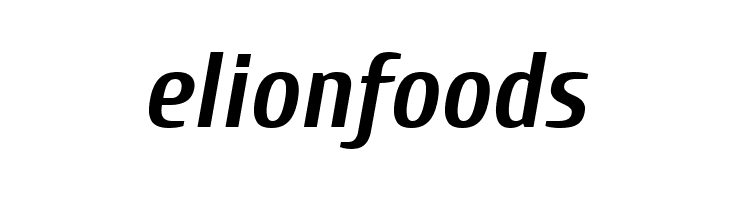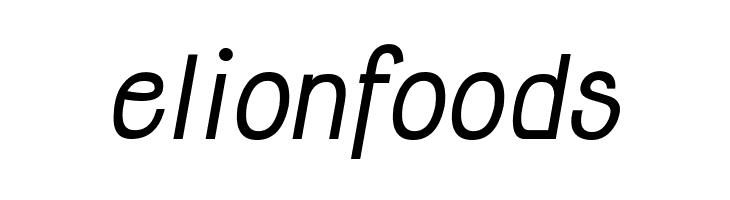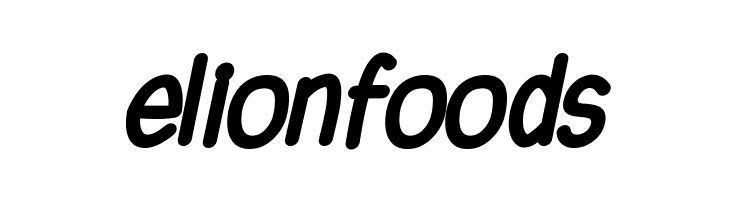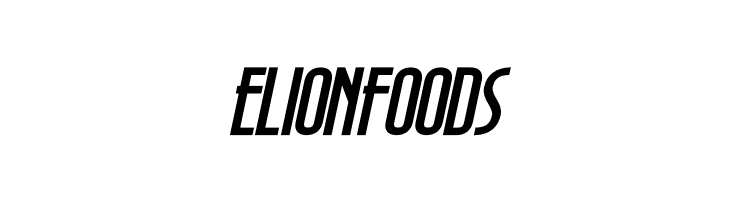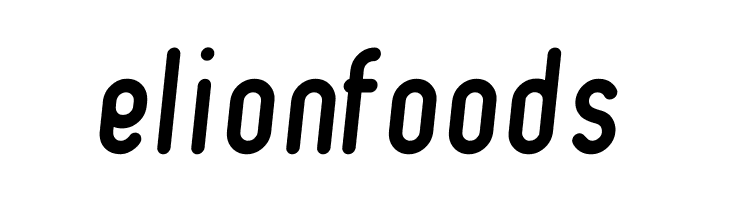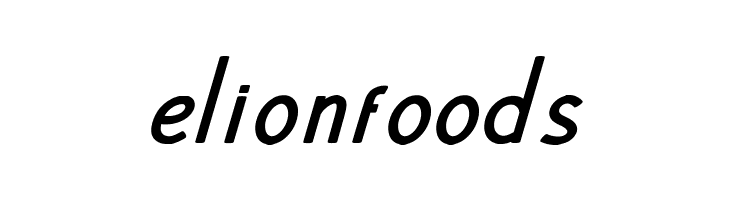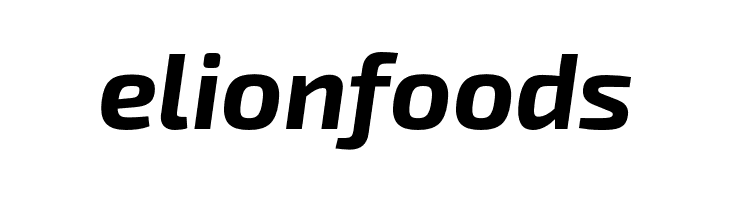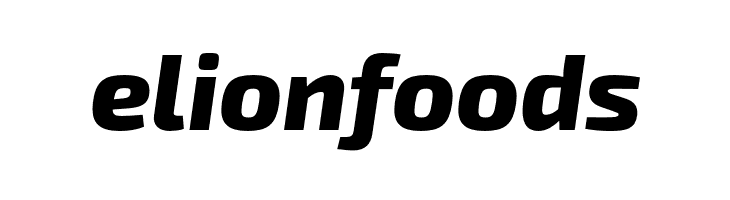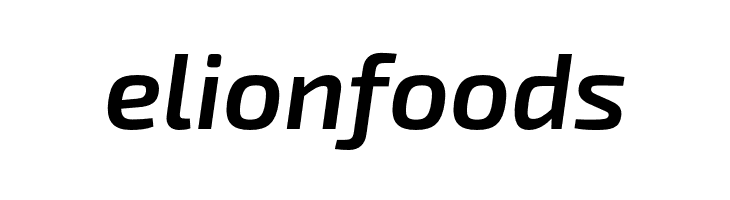
A modern, bold italic font with smooth strokes and moderate contrast.
A bold, italic font with a modern and elegant slant.
A bold, italic font with smooth, rounded characters and a dynamic slant.
A bold, italicized font with a modern, dynamic style and consistent stroke weight.
A bold, italicized font with rounded edges and a modern, approachable style.
A bold, italicized font with strong, slanted letterforms and a clean, dynamic appearance.
A modern, bold, and italicized font with a sleek and dynamic appearance.
A modern, bold, and italic font with a sleek and dynamic style.
A modern, semi-bold italic font with a sleek and compact design.